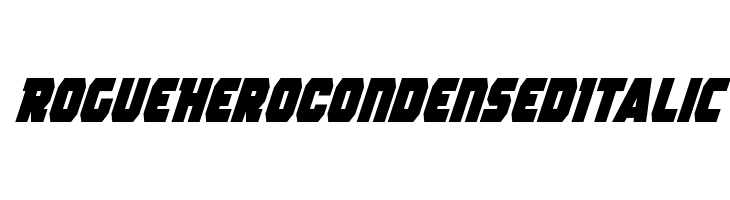
A bold, condensed, and italicized font with a dynamic and modern style.
A bold, condensed, and italicized font with high contrast and sharp angles.
A bold, condensed italic font with tight spacing and strong visual impact.
A bold, condensed, and italicized font with a modern, dynamic style.
A bold, italic, and condensed font with a modern, angular design.
A bold, italicized, and condensed font with a dynamic, modern style.
A bold, angular, condensed italic font with a futuristic style.
A bold, angular, and condensed italic font with a futuristic style.
A bold, condensed, and italicized font with a modern, futuristic style.